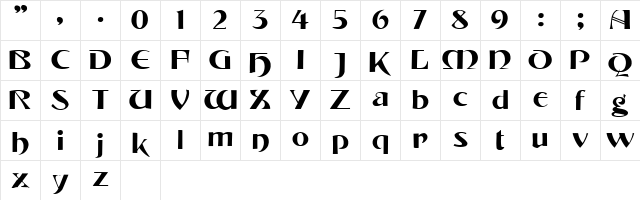
Complete Tintoretto Plain Normal glyph index. Displaying only characters natively supported by Tintoretto Plain Normal font.
Tintoretto Plain is a composed and adaptable typeface that performs quietly and consistently across a wide range of design contexts.